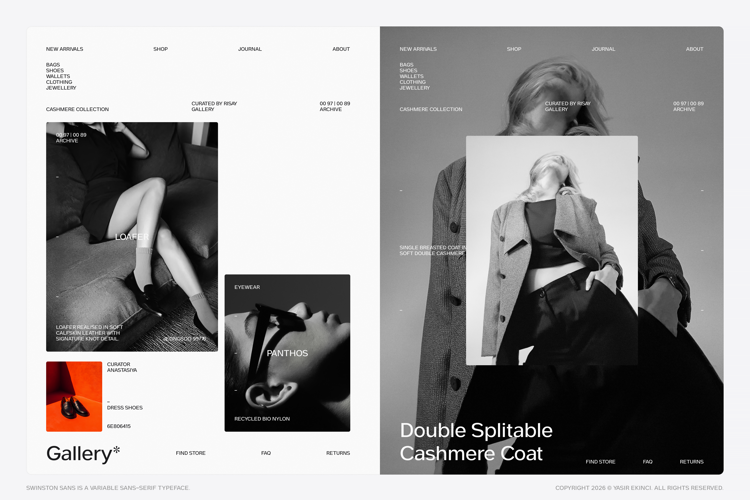
Swinston Sans Font
Swinston Sans – The Organic Logic of the Digital Age
Swinston Sans is a precision-engineered geometric sans-serif designed to bridge the gap between industrial structure and organic reasoning. Born from the modular logic of logistics and recalibrated for the AI era, it features signature 15° angled terminals that create a rhythmic, aerodynamic aesthetic.
It is the ideal typographic system for Tech Startups, UI/UX Design, SaaS Branding, and Modern Editorial.